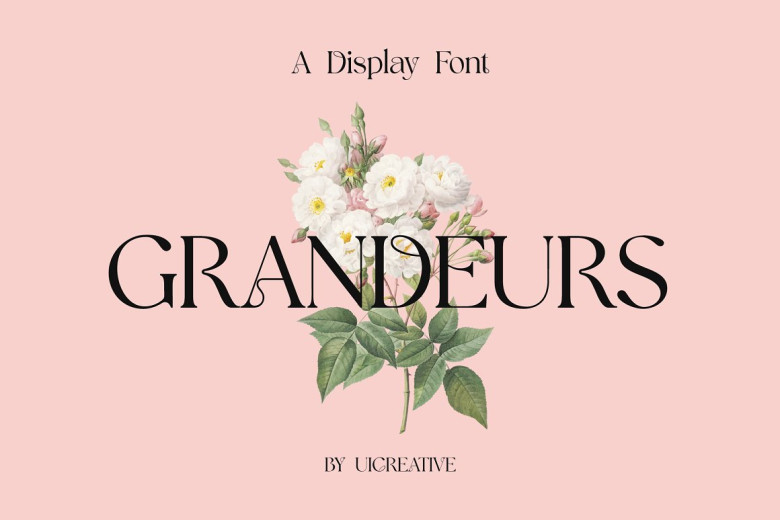
Grandeurs Font
Grandeurs is a typeface that has way more class than the way an entirely new paradigm of class is taken and ran with. It makes for an elegant look to any design that won’t be too easy-going This font was created out of the library source ‘greatgrandeur’ Available now for purchase: Signature, Stationery, Logo, Wedding Outfits are among some of the things you could use it for.
Typography Quotes & Magazines or Book Covers Website Headers Fashion Branding Packaging Design of all kinds Editorial design and other work related to fashion both men’s brandIs related Hetre and A voice
Grandeurs Display Font